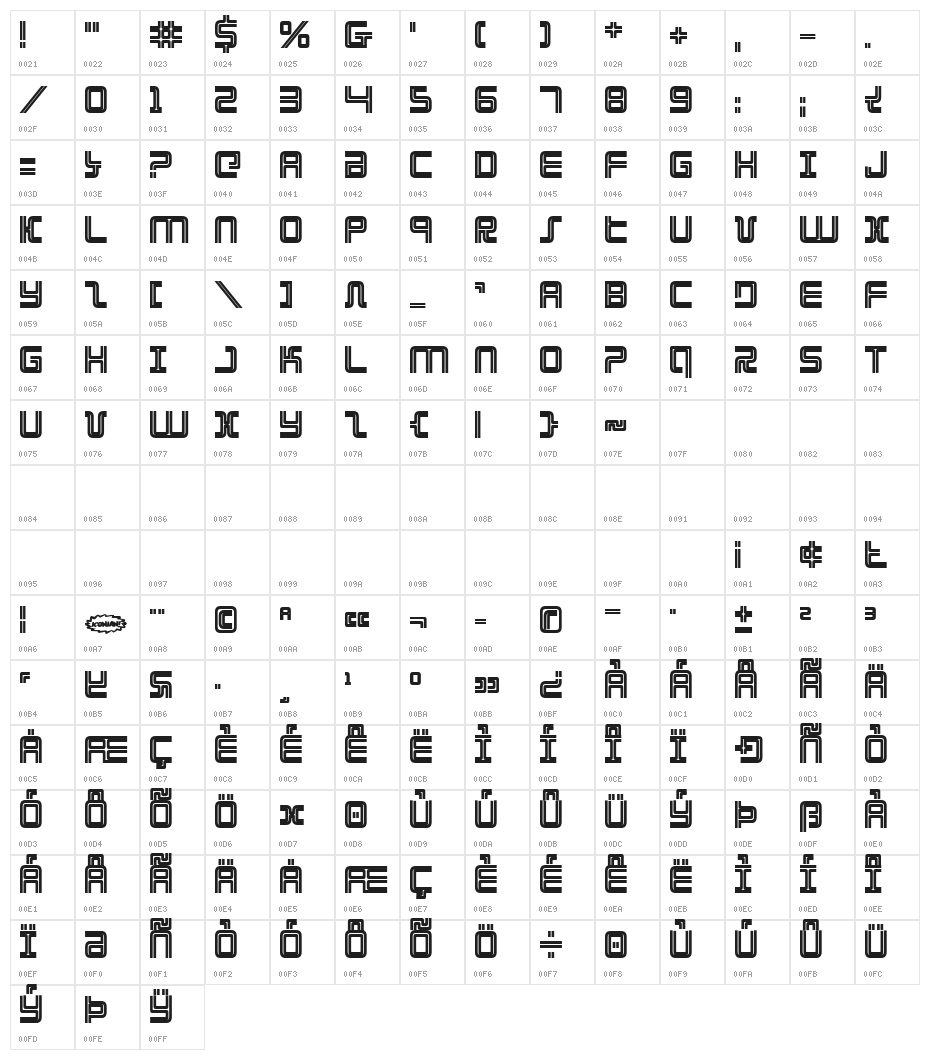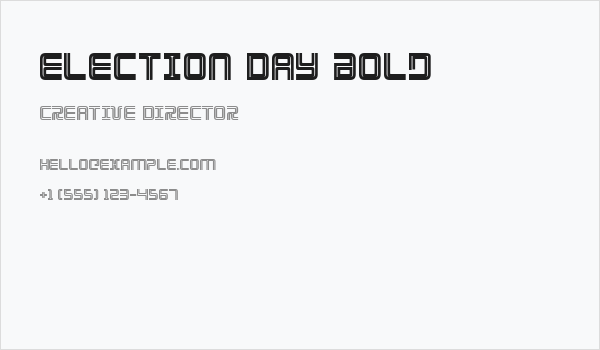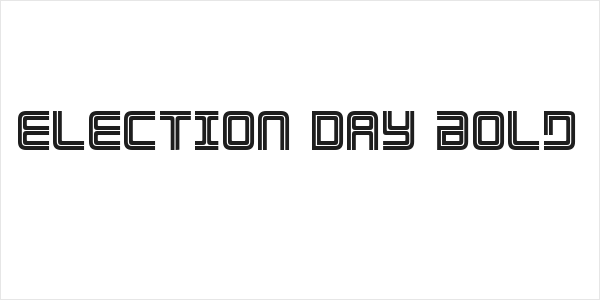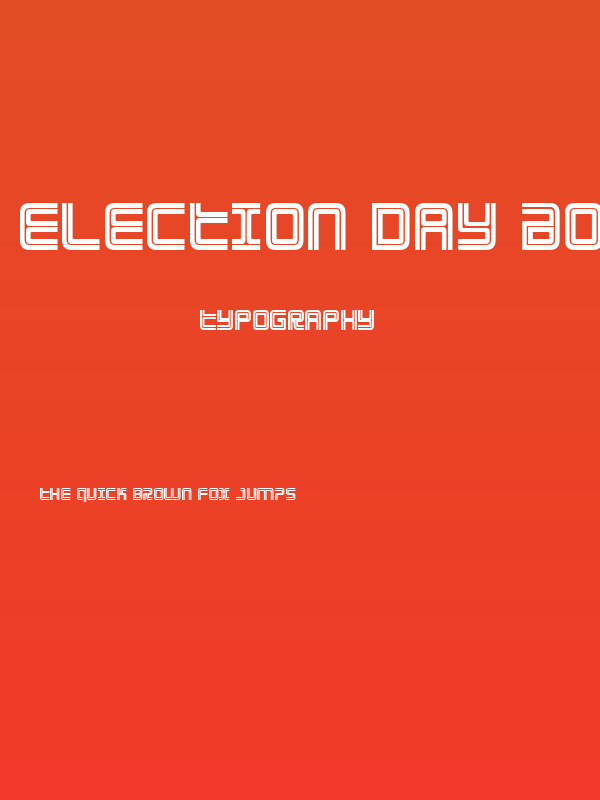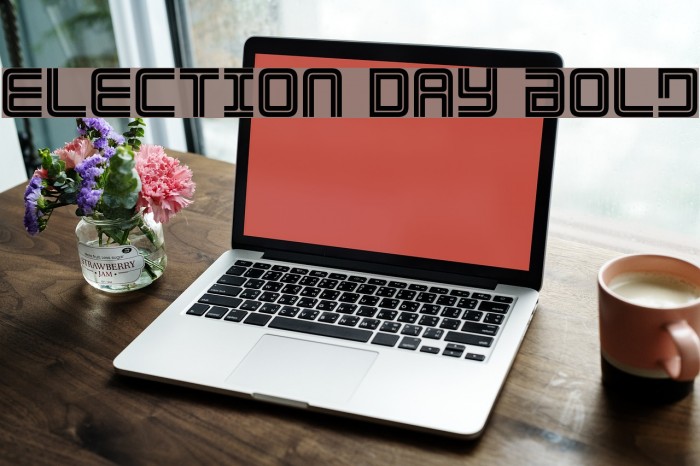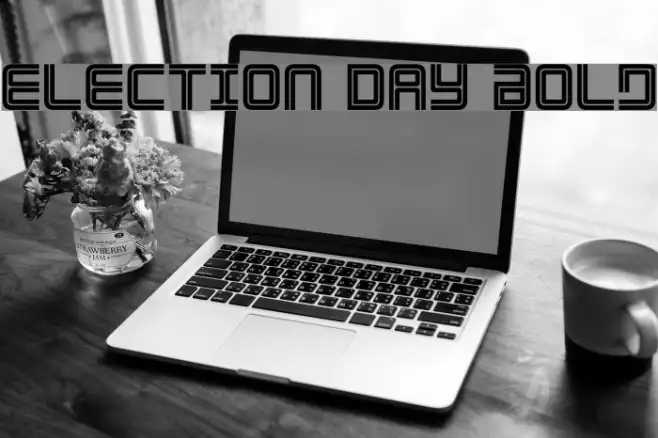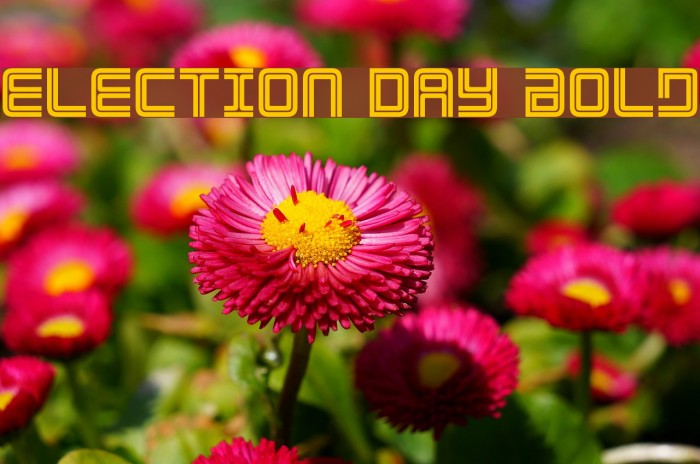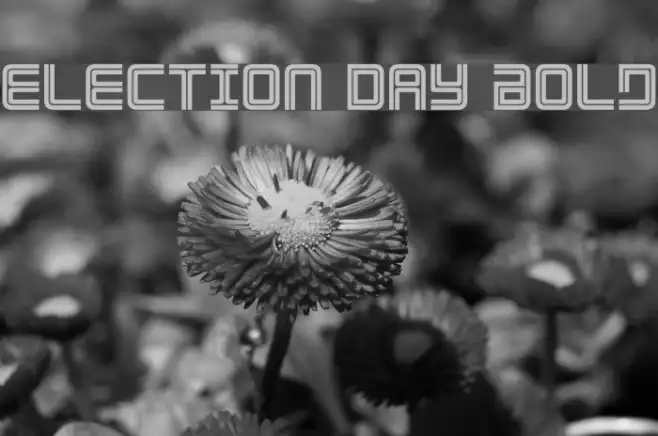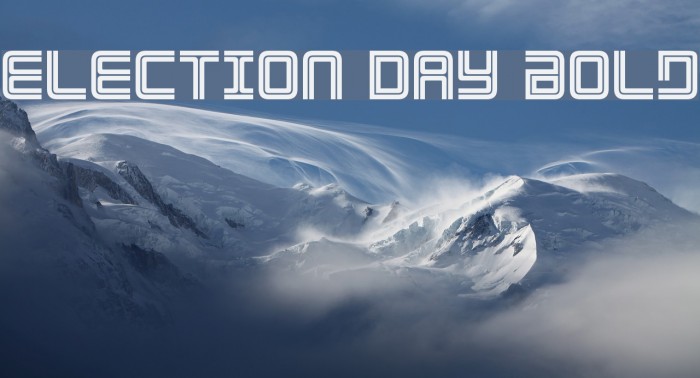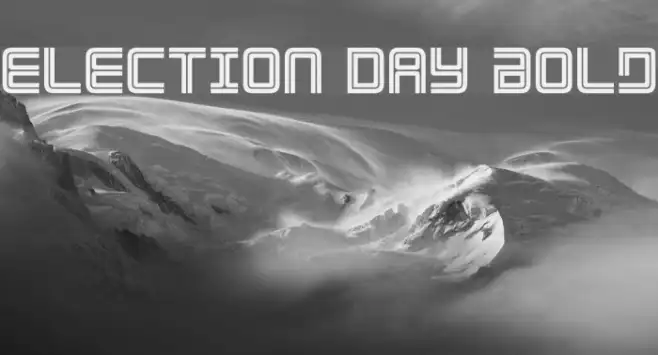
Election Day Bold Font
Election Day Bold Description
This font features a bold, geometric design with a distinct double-line structure that creates a futuristic and modern aesthetic. The characters are uniformly wide, with sharp angles and clean lines that give it a structured and technical appearance. The uppercase and lowercase letters maintain a consistent style, enhancing readability while adding a unique flair. The numbers and special characters follow the same design principles, ensuring a cohesive look across all elements. Its boldness and distinct style make it ideal for attention-grabbing headlines or branding projects that require a modern and edgy feel.
| Proposed Projects | Ideal for technology branding, futuristic posters, and modern advertising campaigns. |